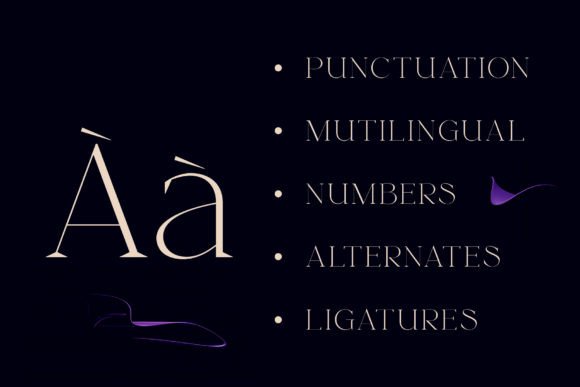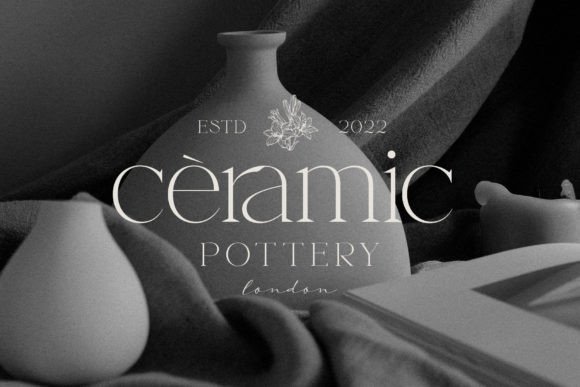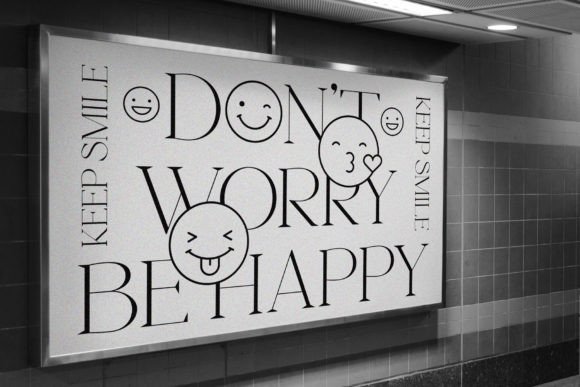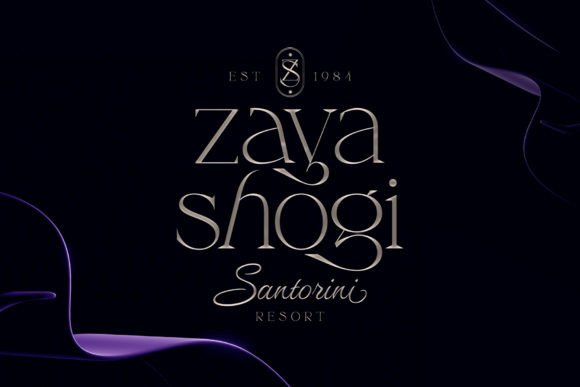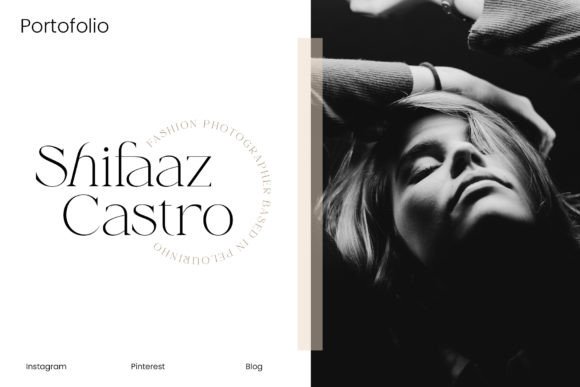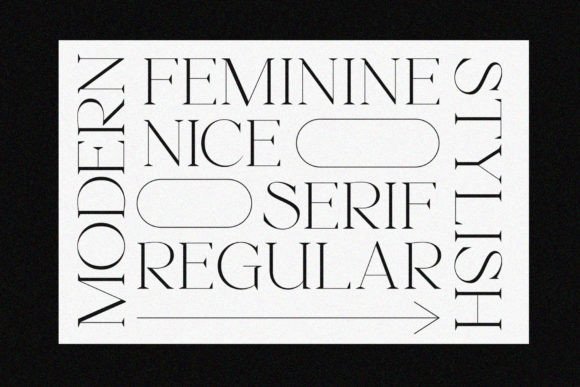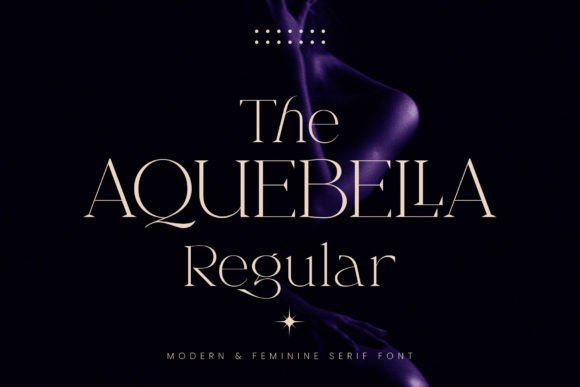
Aquebella Font: Elevate Your Designs with Elegance and Modernity
In the world of typography, a font can make or break a design. For designers and crafters looking for a stylish and modern serif font, Aquebella is an excellent choice. This elegant and contemporary font is perfect for a wide range of applications, from logos and branding to invitations, stationery, wedding designs, social media posts, and more.
The Aquebella Advantage: A Perfect Blend of Style and Versatility
Aquebella Font boasts a sleek and sophisticated design, making it an ideal choice for projects that demand a touch of luxury and refinement. Its modern serif design ensures that your work stands out in a crowded digital landscape, while its elegance guarantees a lasting impression on your audience.
Key Features of Aquebella Font
- PUA Encoding: Aquebella Font is PUA (Private Use Area) encoded, which means you can easily access all glyphs and ligatures. This feature allows for greater flexibility and creativity in your designs, making it easier to create unique and visually appealing content.
- Wide Range of Applications: Whether you’re working on a logo, branding materials, invitations, stationery, wedding designs, or social media posts, Aquebella Font is the perfect choice. Its versatility ensures that it can adapt to various design styles and requirements.
- Elegant and Modern Design: Aquebella’s sleek lines, balanced proportions, and refined details create a sophisticated look that’s perfect for designs that require a touch of elegance. Its modernity ensures that your work looks contemporary and fresh.
Why Choose Aquebella Font for Your Designs?
With so many fonts available, why should you choose Aquebella for your next project? Here are a few compelling reasons:
- Uniqueness: Aquebella’s distinctive design sets it apart from more traditional serif fonts. Its unique character ensures that your work stands out and grabs attention.
- Readability: Despite its elegance, Aquebella Font remains highly readable, making it suitable for body text and headlines alike.
- Customization: With PUA encoding, you can easily customize your text to fit your design requirements. Access a wide range of glyphs and ligatures to create the perfect look for your project.
How to Use Aquebella Font in Your Designs
Using Aquebella Font in your designs is straightforward. Here are some tips to get you started:
- Pair it with Other Fonts: Aquebella Font works well when paired with sans-serif fonts for a contrasting look or with other serif fonts for a harmonious design.
- Experiment with Sizes and Weights: Play around with different sizes and weights to create visual hierarchy and add depth to your designs.
- Take Advantage of Ligatures: Use Aquebella’s ligatures to add a touch of sophistication to your text. These special character combinations can elevate your design and make it more engaging.
Who Can Benefit from Aquebella Font?
Aquebella Font is an excellent choice for a wide range of designers and crafters, including:
- Graphic Designers: Whether you’re working on branding materials, logos, or marketing collateral, Aquebella Font can add a touch of elegance to your designs.
- Wedding Designers: Create beautiful wedding invitations, stationery, and decorations with Aquebella Font’s sophisticated and romantic look.
- Social Media Influencers: Elevate your social media posts with Aquebella Font’s modern and stylish design.
- Crafters: Use Aquebella Font to add a personal touch to your craft projects, such as handmade cards, gift tags, and more.
Aquebella Font is a versatile and elegant serif font that’s perfect for designers and crafters looking to add a touch of sophistication to their work. With its PUA encoding, modern design, and wide range of applications, Aquebella is an excellent choice for various projects. Whether you’re working on logos, branding materials, invitations, or social media posts, Aquebella Font can help you create stunning designs that leave a lasting impression.